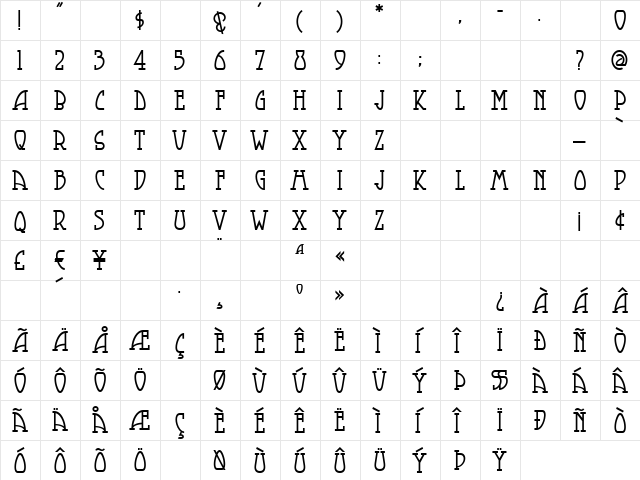
SmorgasbordNF Regular
| Foundry | Nick's Fonts |
| Designer | Nick Curtis |
Design Context for SmorgasbordNF Typeface
SmorgasbordNF is a composed and adaptable typeface that performs quietly and consistently across a wide range of design contexts.